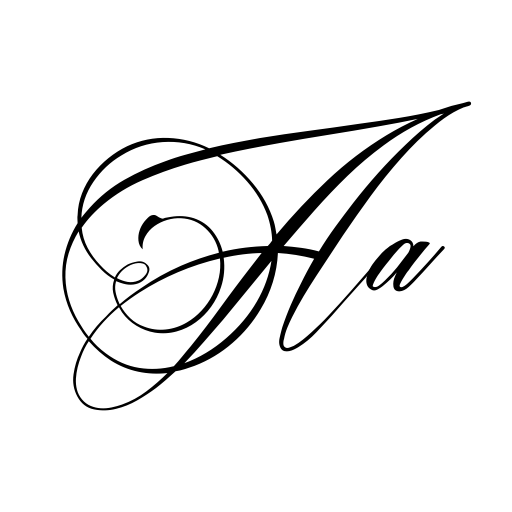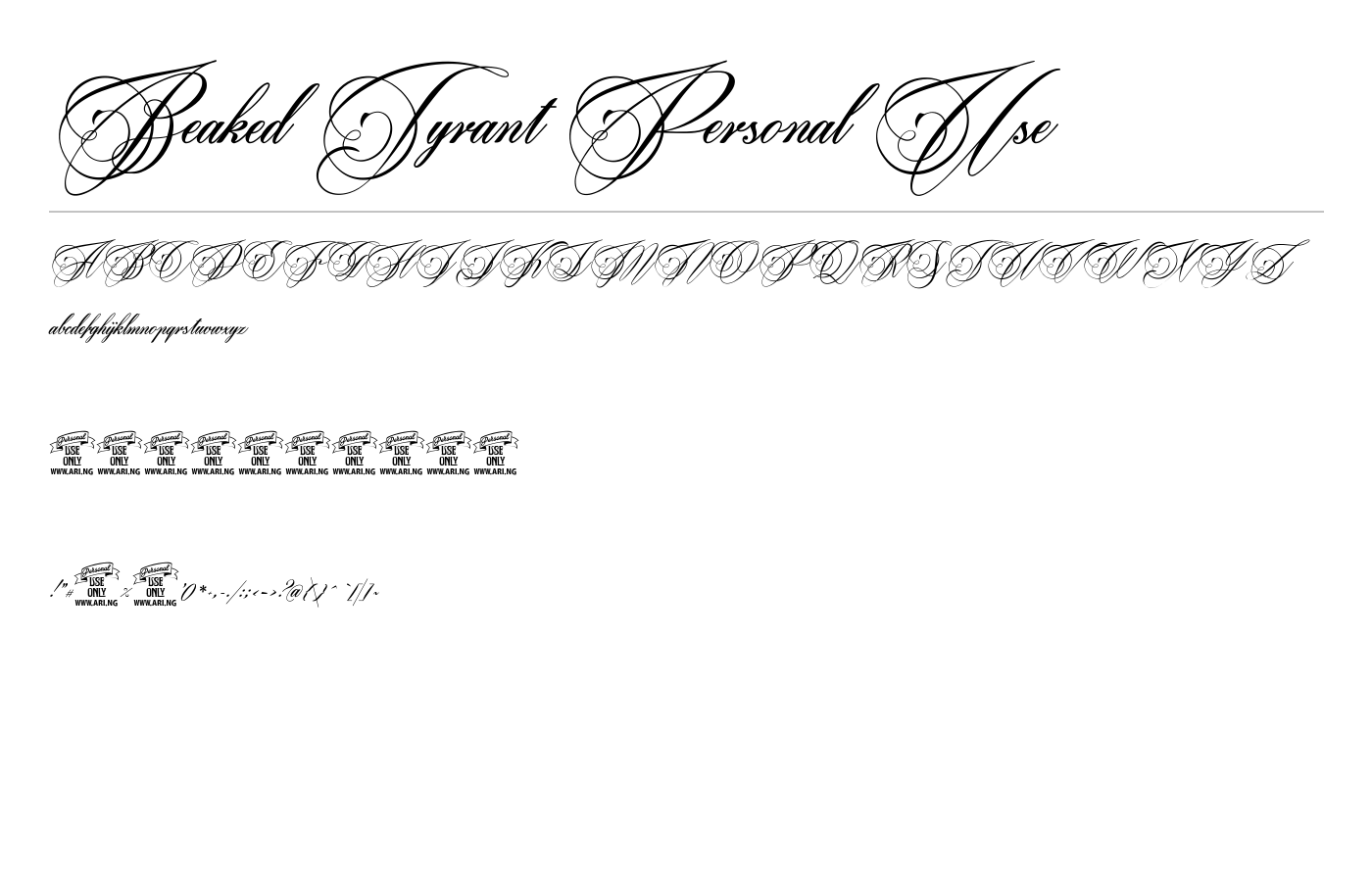
Beaked Tyrant Personal Use is an elegant, highly decorative script font with intricate, swirling flourishes that give it a luxurious and sophisticated feel. Its thin, graceful strokes and elaborate uppercase letters make it ideal for wedding invitations, upscale branding, and formal event headings where a refined and artistic touch is desired. This font works best in large sizes for display purposes rather than body text, adding a sense of vintage charm and ornate beauty to any design.
Beaked Tyrant Personal Use Font
About Beaked Tyrant Personal Use Font
| Font family | Beaked Tyrant Personal Use Font |